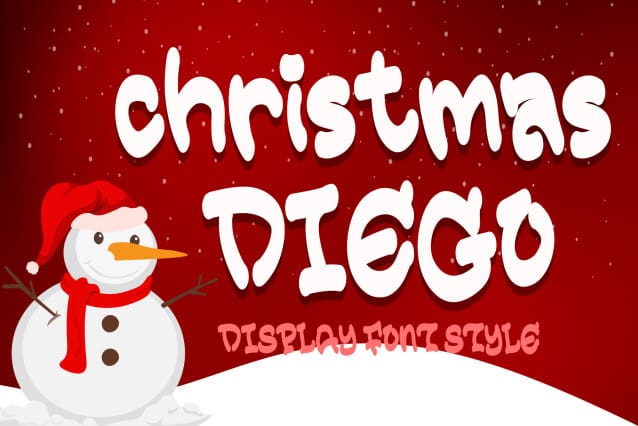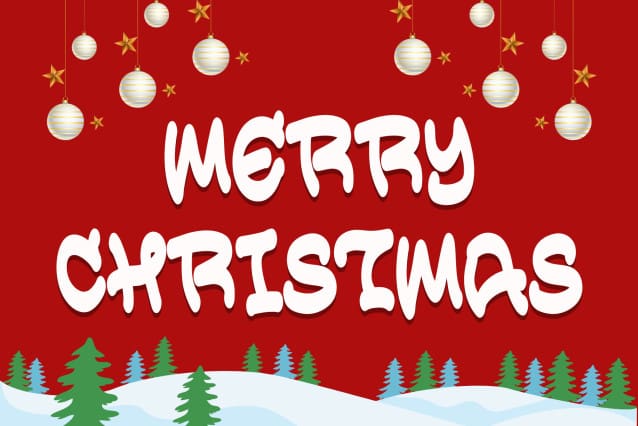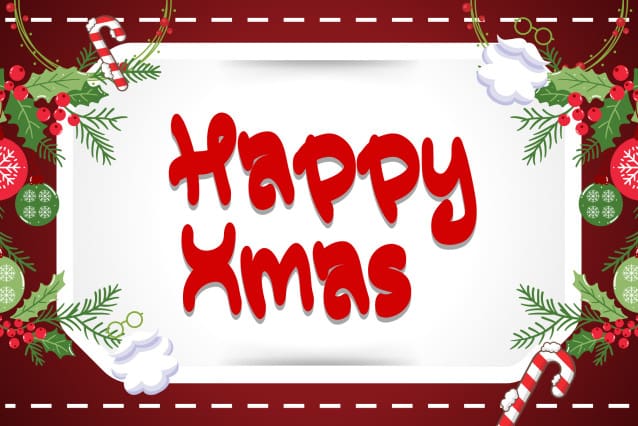
Christmas Diego Font
“Christmas Diego” is an elegant and unique display font. It features uppercase and lowercase letters, numbers, punctuation, and multilingual support. Perfect for banners, posters, prints, branding, logos, stickers, Christmas, graffiti, Halloween, winter, fall, gifts, birthdays, spring, summer, weddings, t-shirts, mockups, Procreate, sublimation, and more.